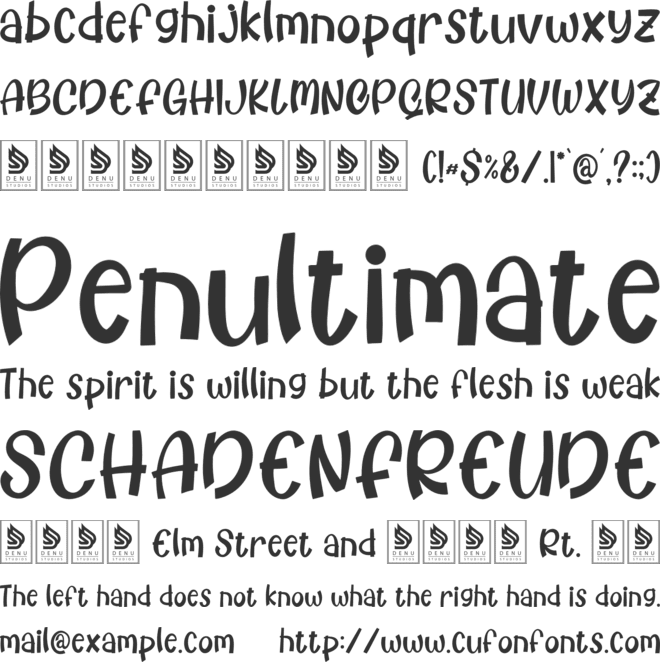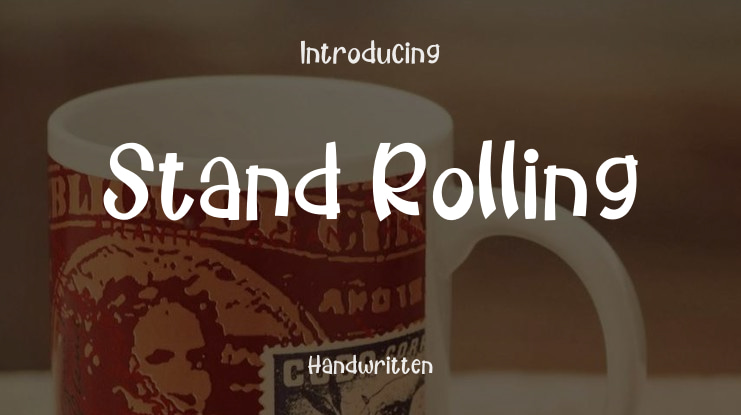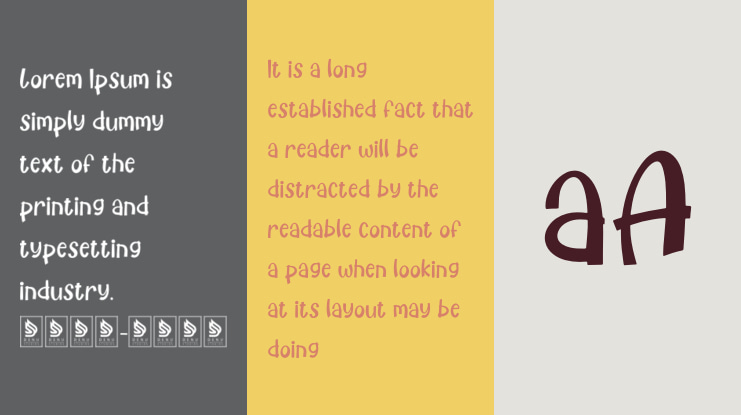
Stand Rolling | Hand Drawn Light Style is suitable for any projects such as: logos, branding projects, homeware designs, product packaging, mugs, quotes, posters, shopping bags, t-shirts, book covers, name card, invitation cards, greeting cards, label, photography, watermark, special events, and all your other lovely projects that need a Hand Drawn Light Style taste.